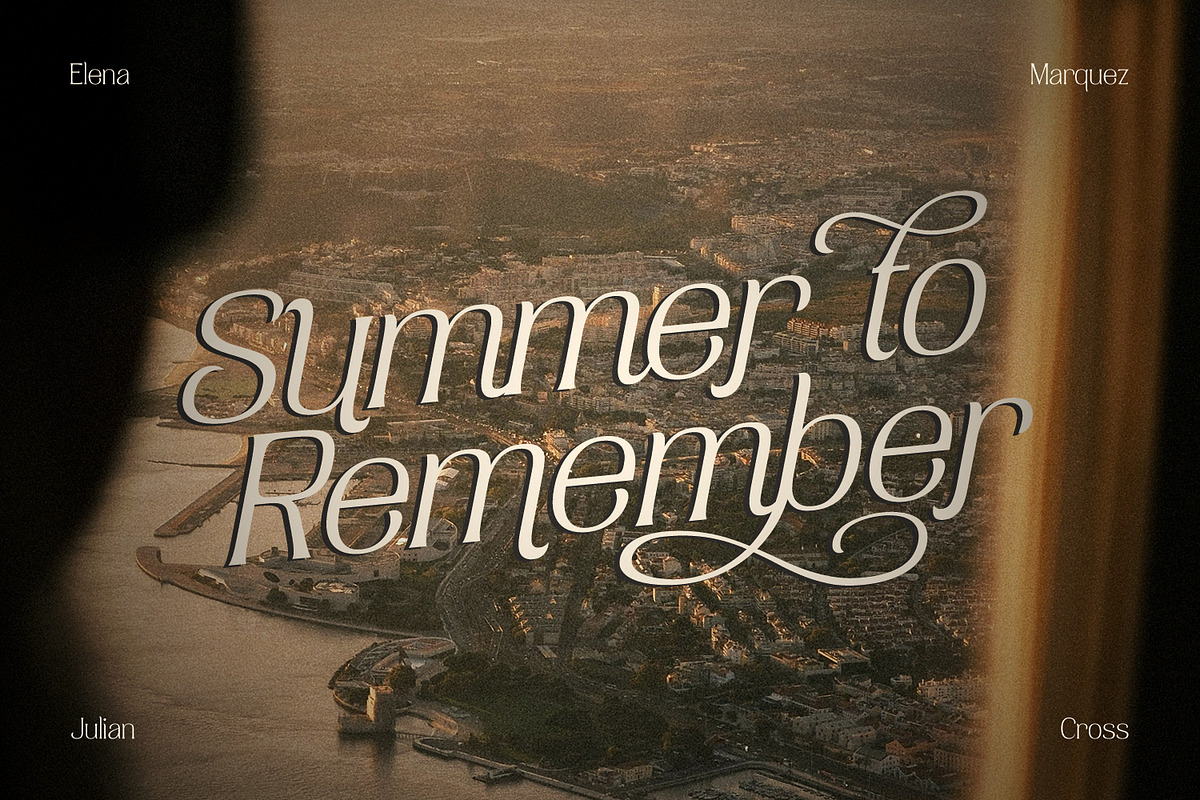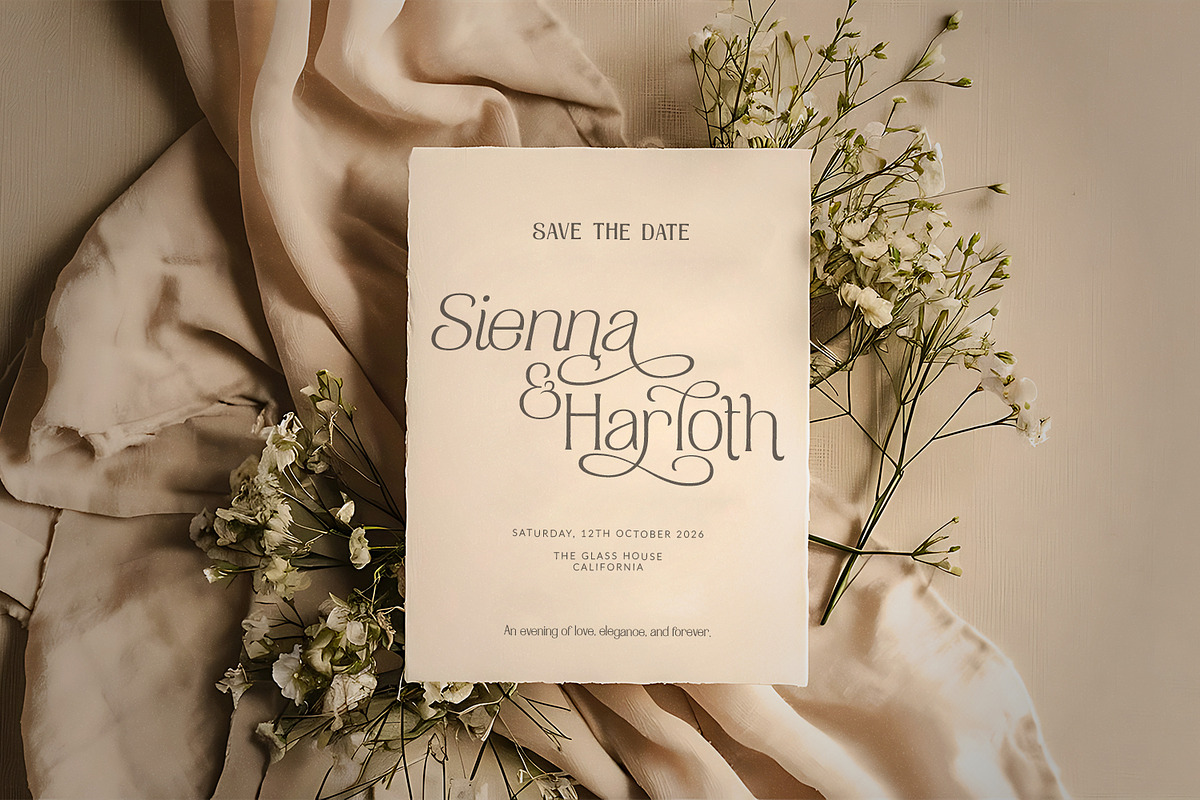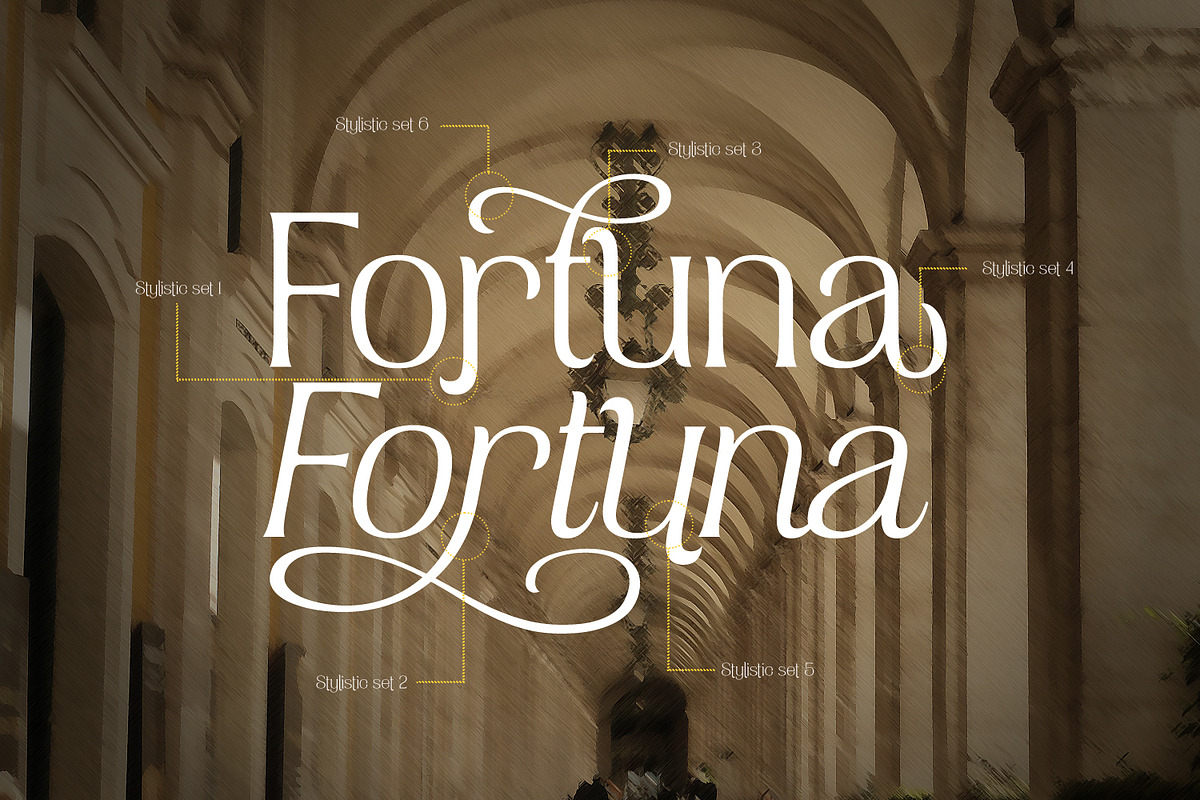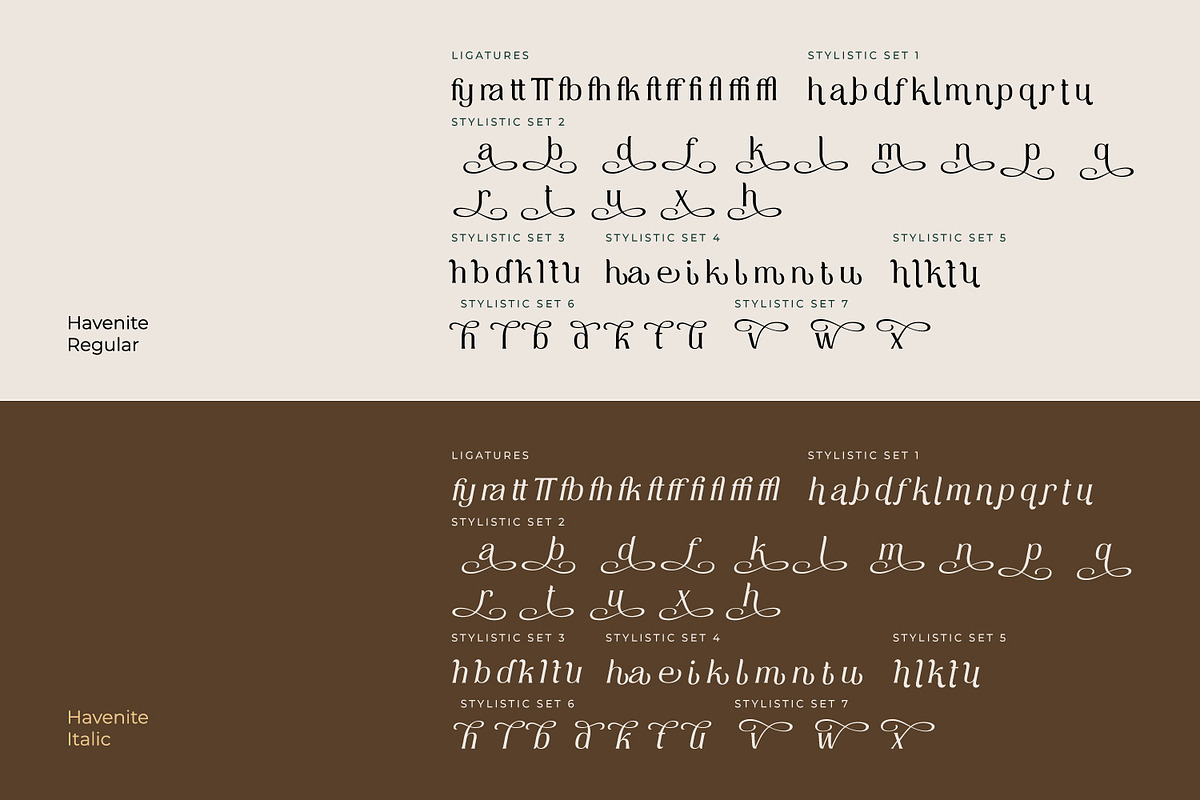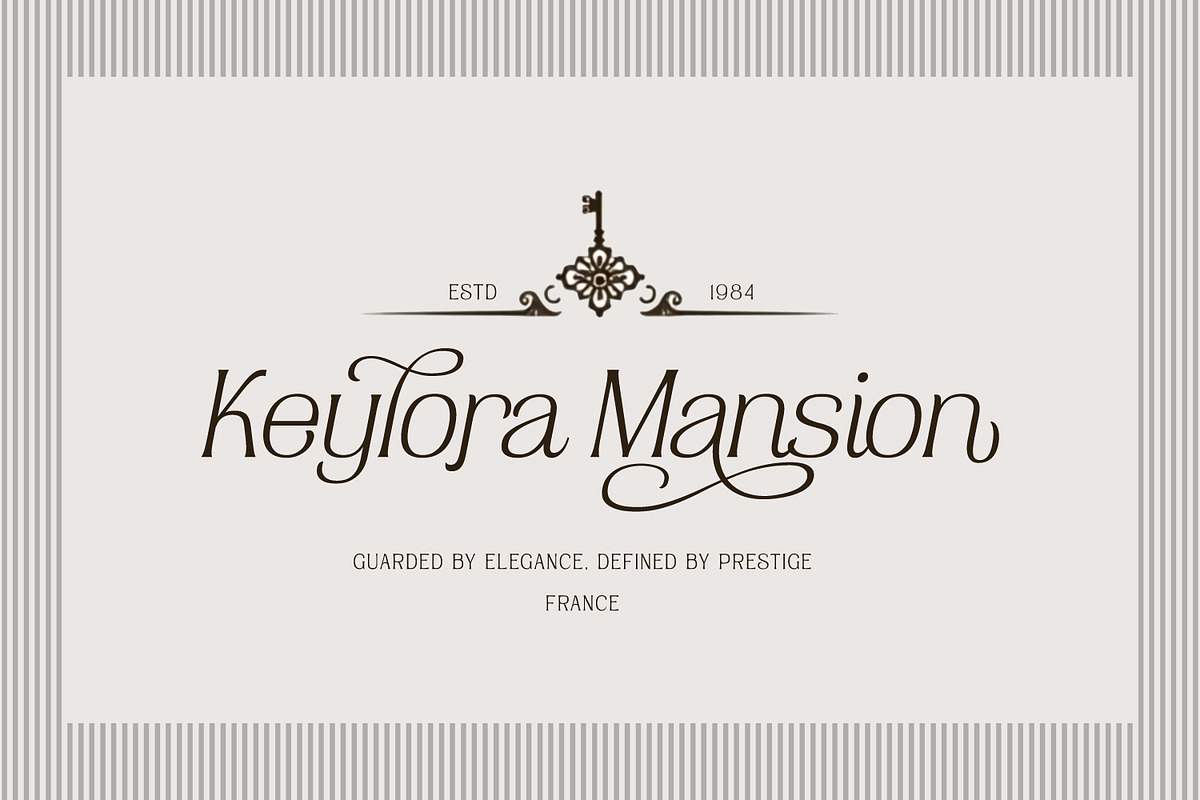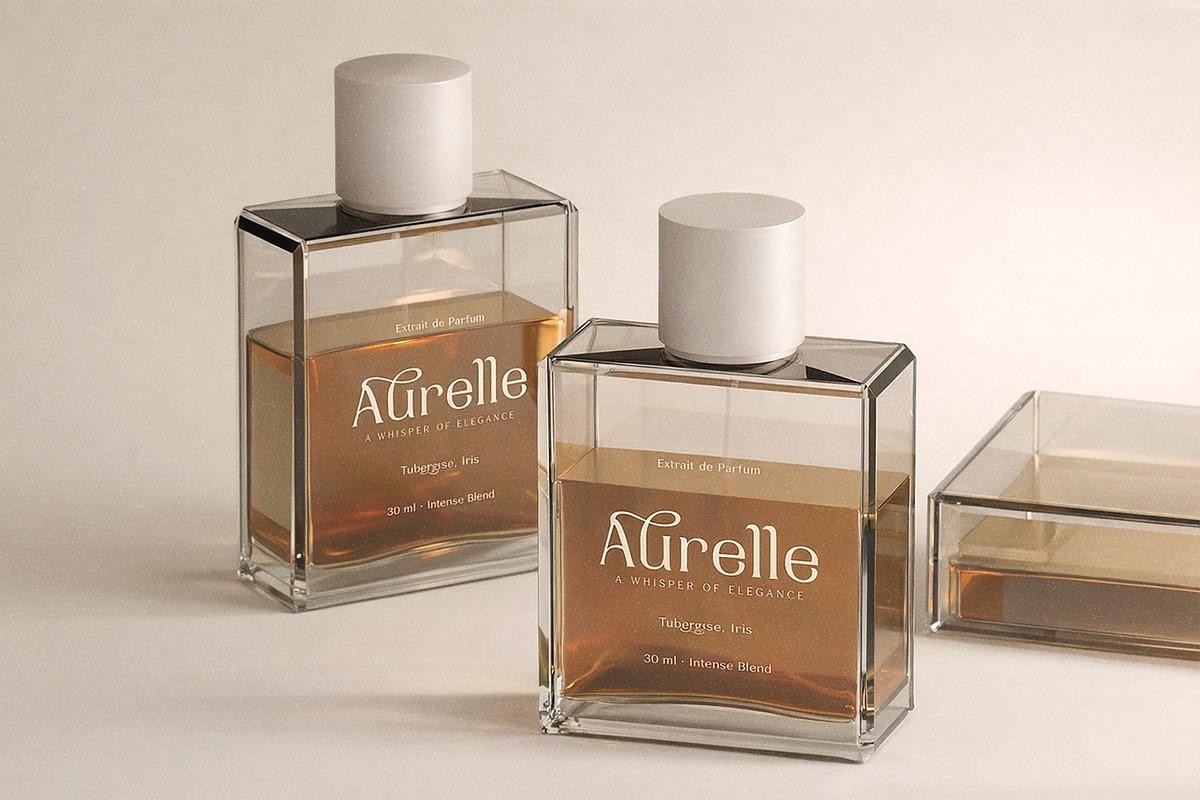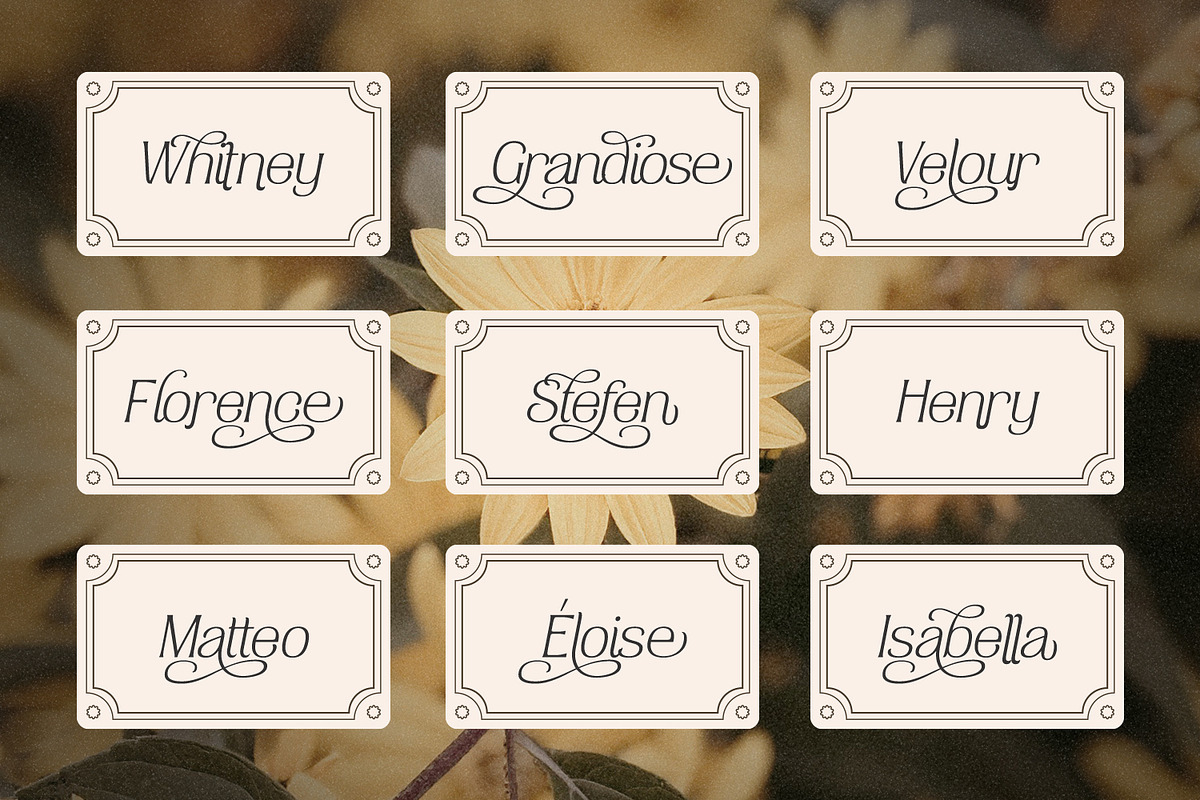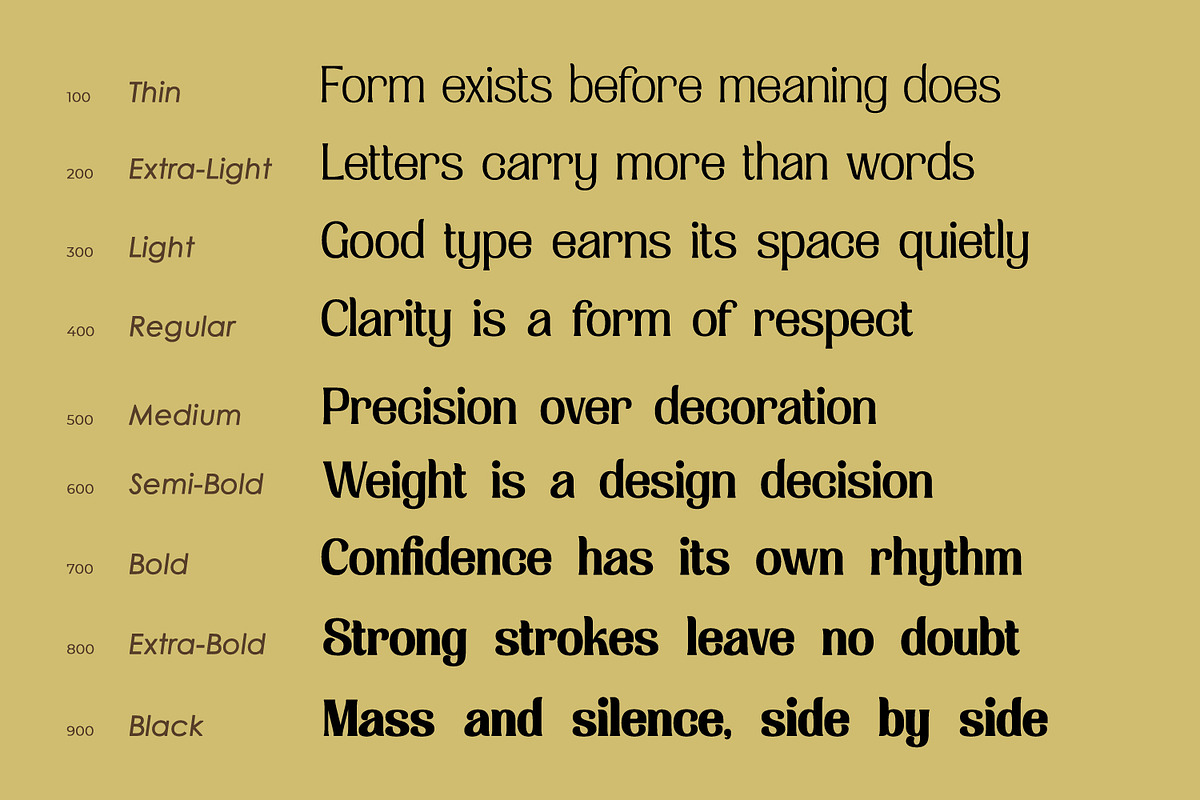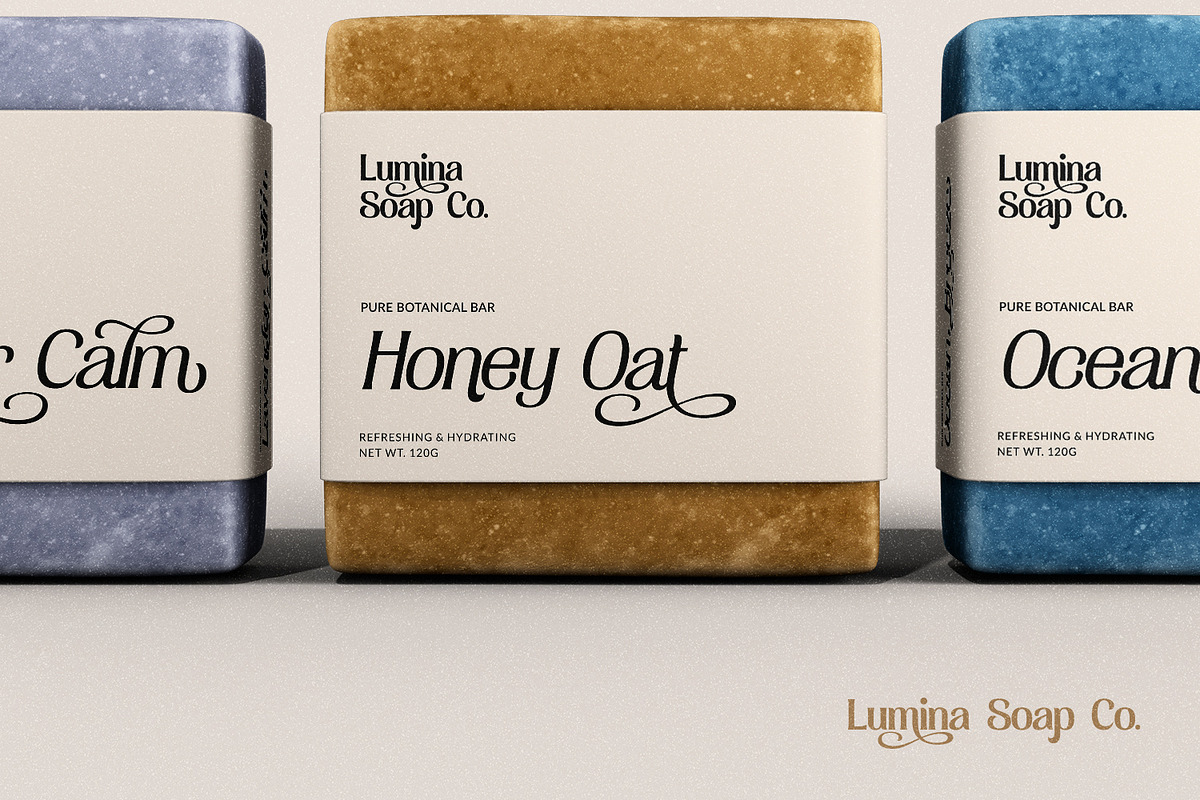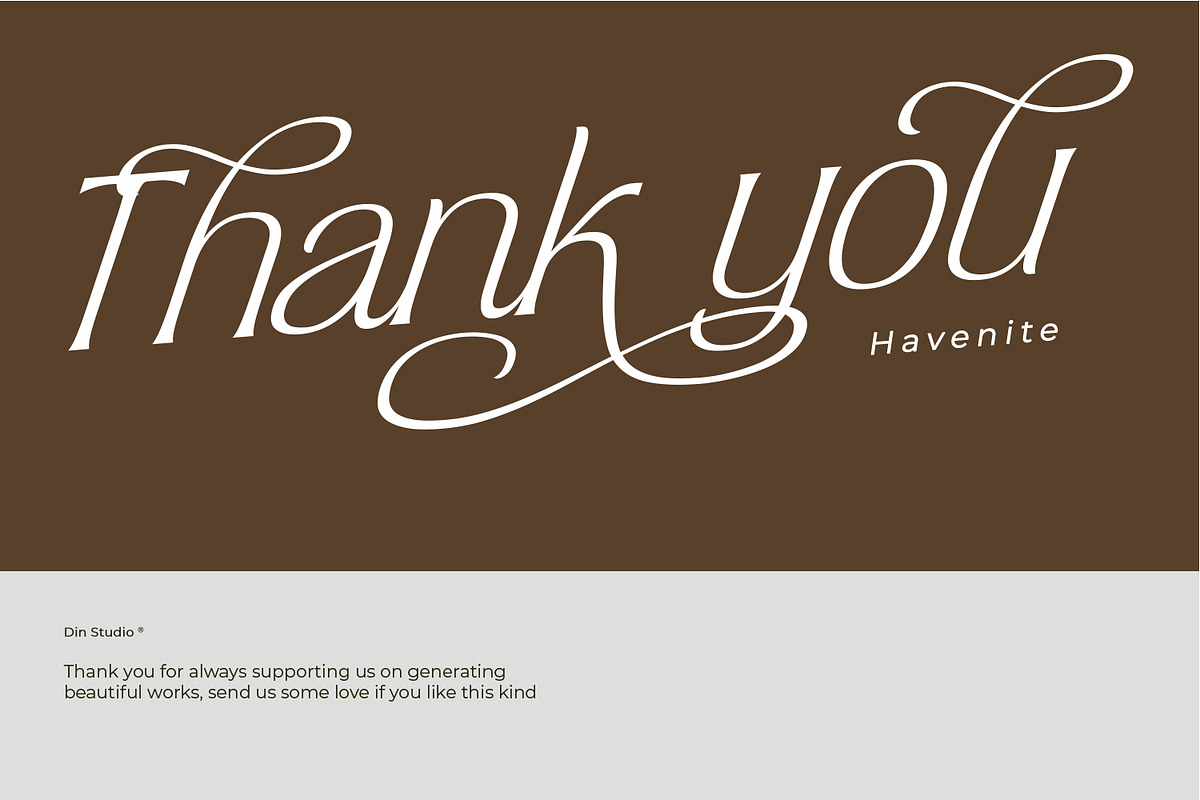
Havenite
Havenite is a contemporary serif font family designed to bring sophistication, versatility, and modern elegance to professional typography. Crafted with carefully balanced proportions, refined serif details, and clean letterforms, Havenite delivers a timeless aesthetic that feels both stylish and highly functional. What makes Havenite especially powerful is its complete family structure, featuring 9 different weights along with beautifully designed italic versions. In addition, enjoy the features here.
Stylistic Sets
Multilingual Supports
Numerals and Punctuations
Havenite fits in logos, quotes, name cards, branding, posters, and many more designs. Find out more ways to use this font by taking a look at the font preview.